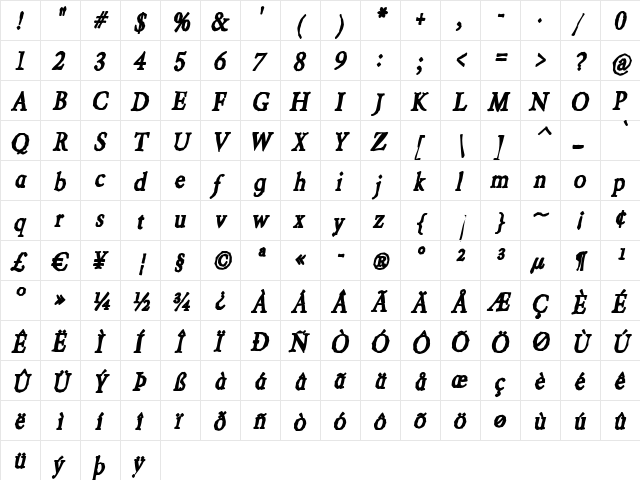
Berylium Ink Italic
Design Context for Berylium Ink Typeface
Berylium Ink takes a measured approach to typography — its balanced proportions and neutral character make it a reliable workhorse for both digital and print work. The slanted form adds forward momentum and visual energy.
Pro Tip: Try Berylium Ink for annotation and caption copy alongside an upright companion — the contrast in angle creates a dynamic but ordered typographic system.